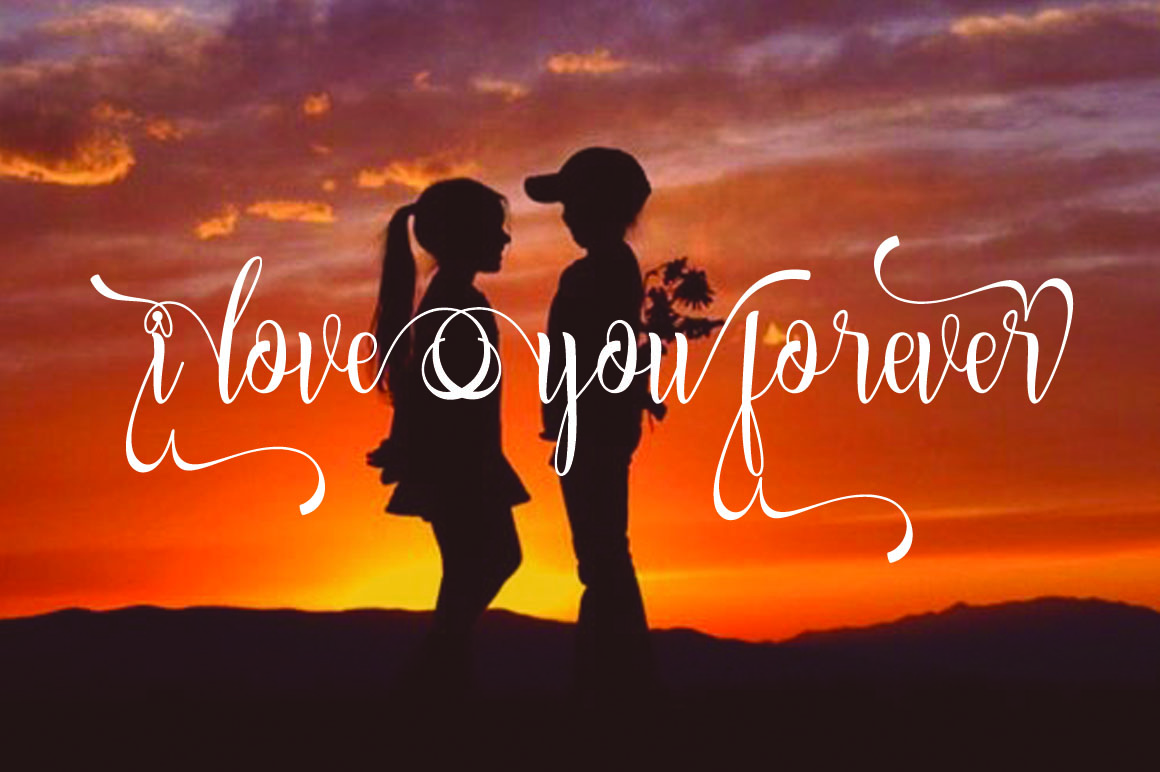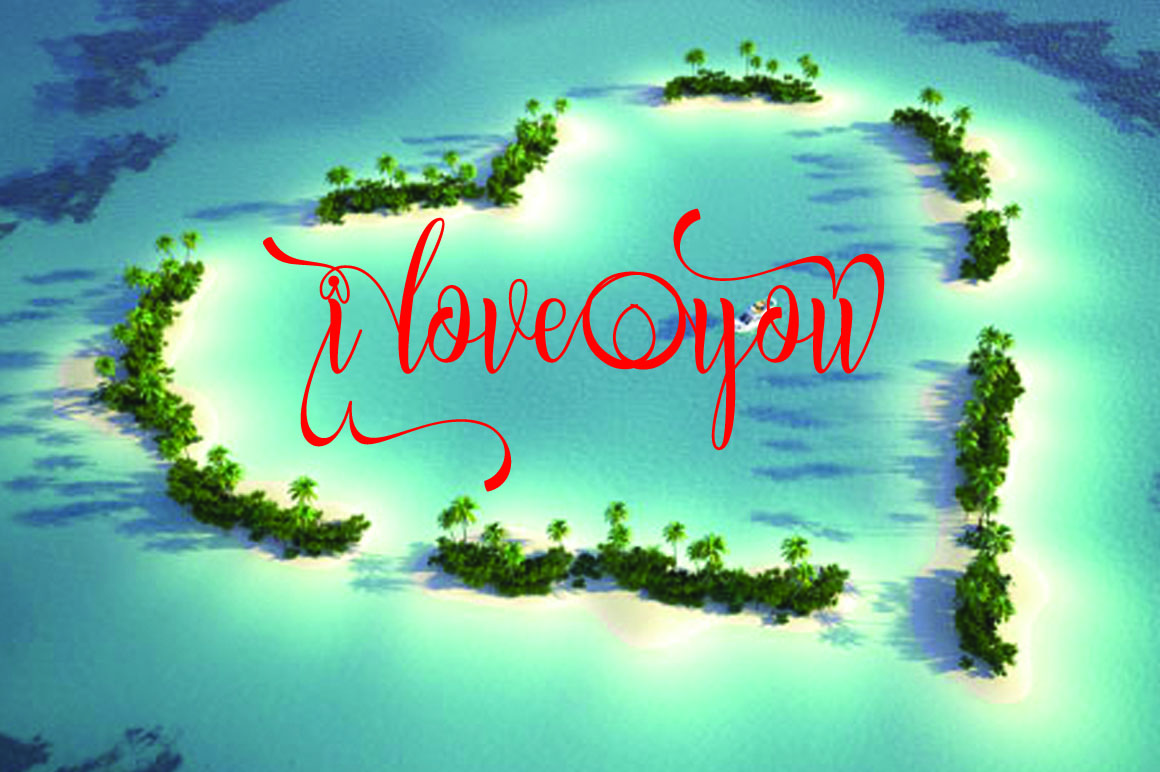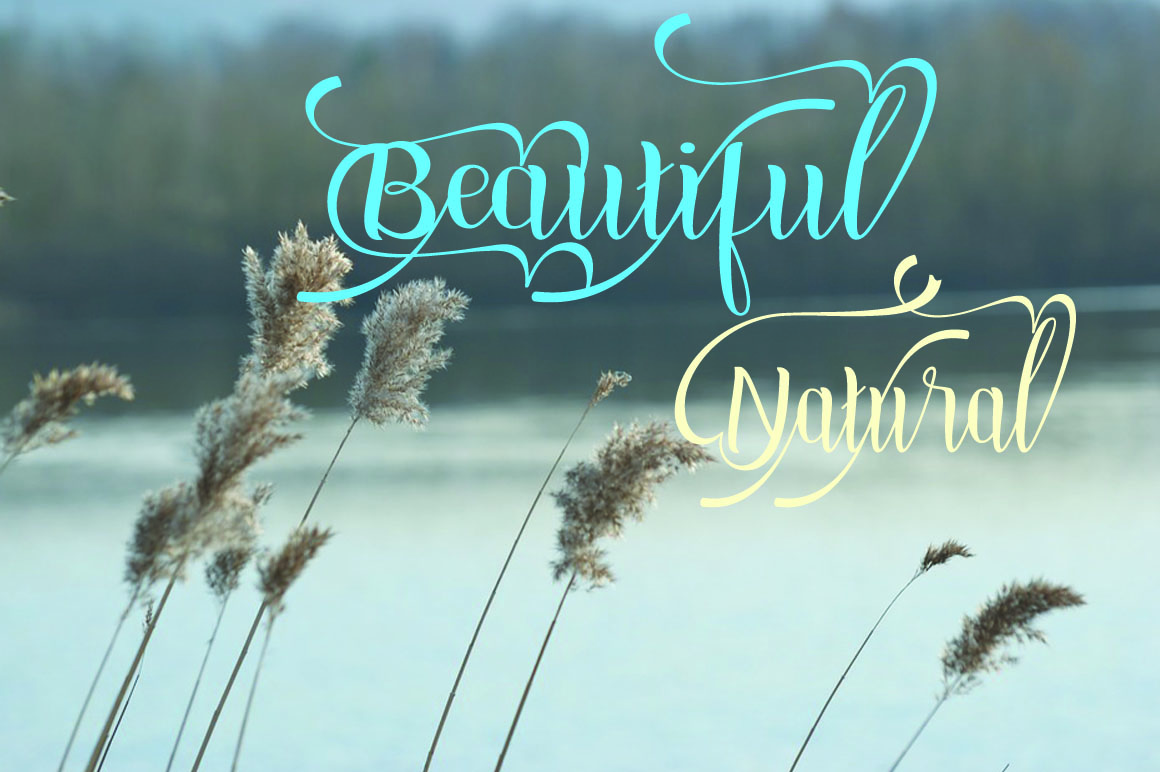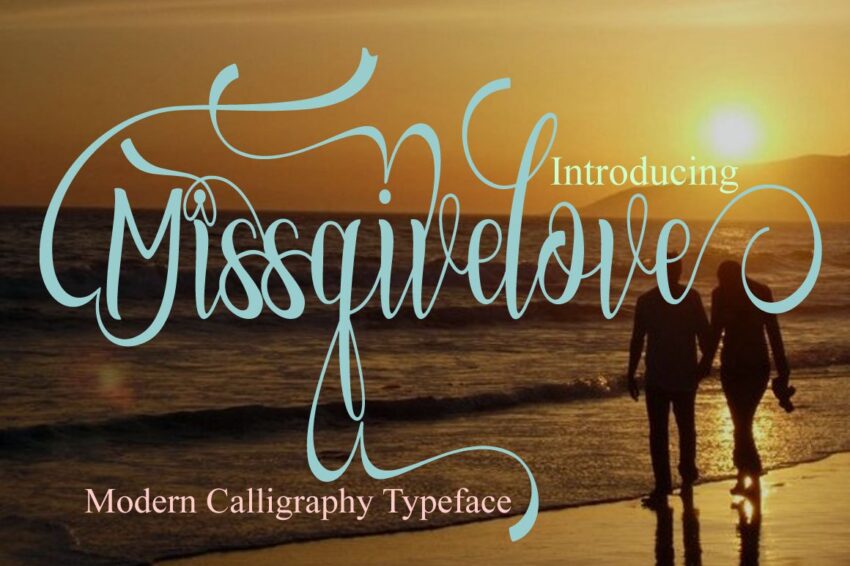
Introduction to Missgivelove Font
Missgivelove is a modern handwritten font that features long swashes and alternates.
Key Features of Missgivelove Font
Why Choose Missgivelove Font?
Missgivelove Font offers exceptional quality and versatility, making it a valuable addition to your design toolkit. Whether you’re creating for personal projects or commercial use, Missgivelove Font delivers professional results.